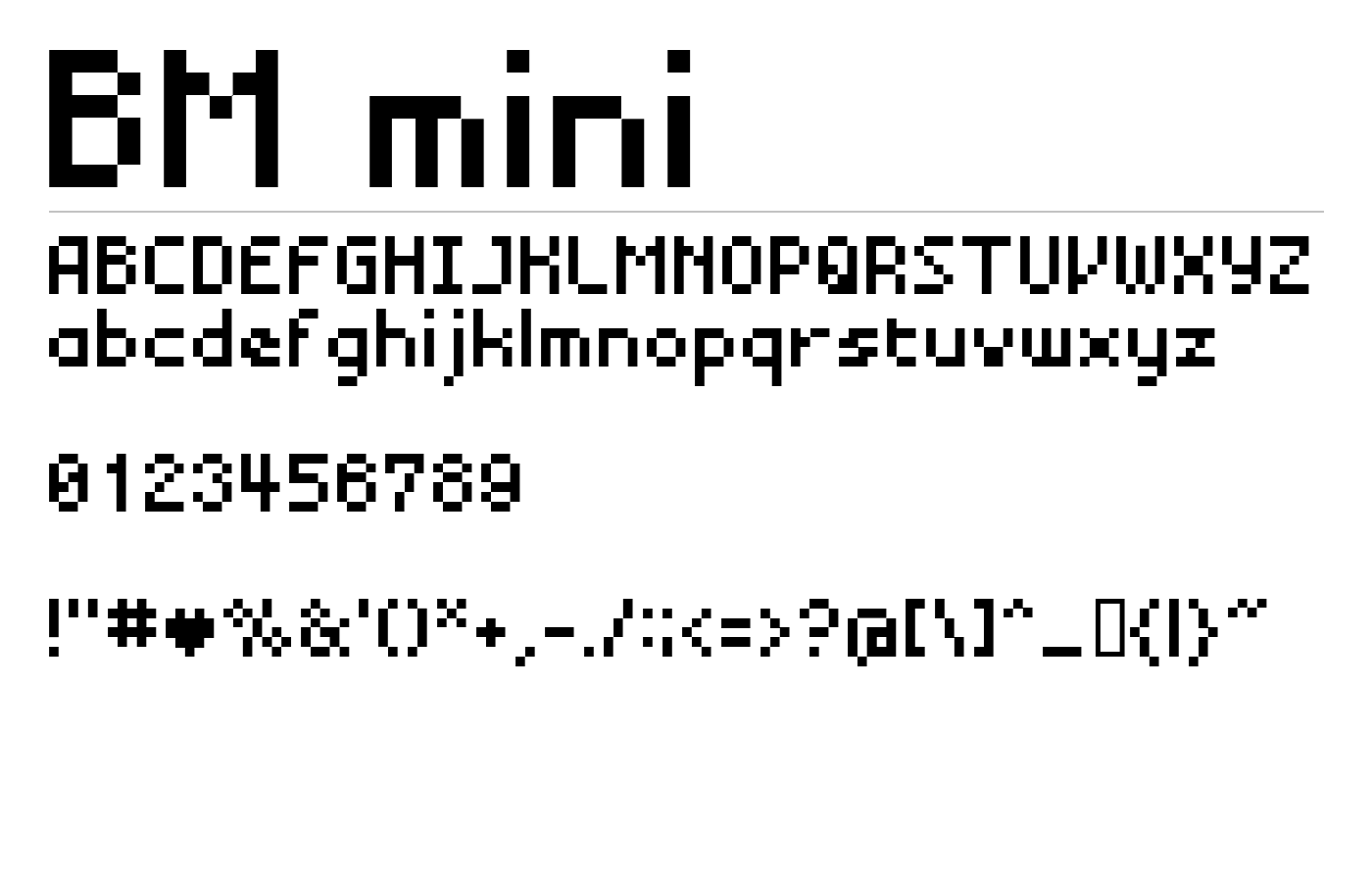
BM mini is a pixelated, sans serif font characterized by its blocky, geometric letterforms and consistent stroke weight. Its clean, minimal design offers excellent readability at small sizes, making it ideal for digital interfaces, retro-style graphics, and tech-inspired branding. The font’s compact, monospaced appearance conveys a modern, utilitarian vibe perfect for video games, coding projects, and pixel art aesthetics.
BM mini Font